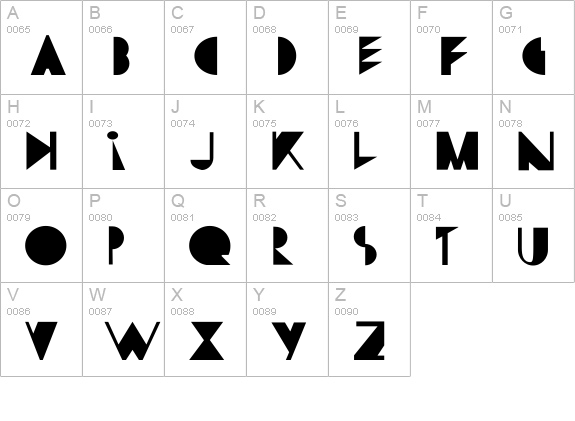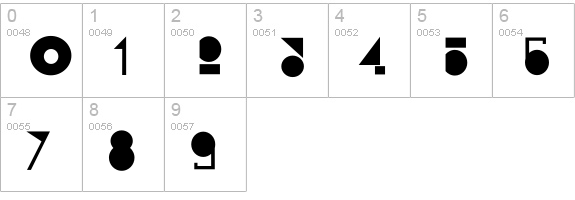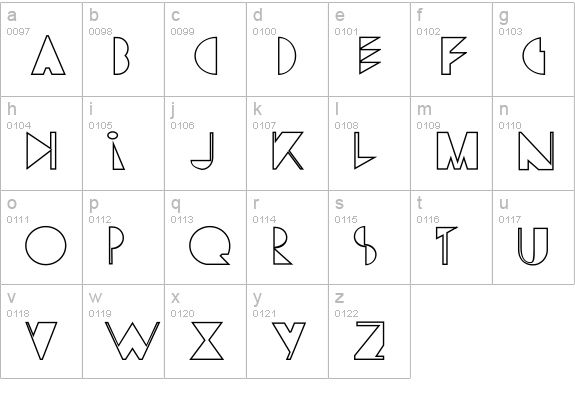
Yes:CityOfAngels Font Details
Yes:CityOfAngels font is a stunning and versatile typeface that captures the essence of urban sophistication and modern design. With its sleek lines and contemporary flair, this font is perfect for a wide range of design projects, from branding to advertising to editorial layouts. The clean and elegant letterforms of Yes:CityOfAngels font exude a sense of style and professionalism, making it a great choice for any designer looking to elevate their work. What's even better is that Yes:CityOfAngels font is available for free download at FontsMarket.com. This means you can easily access this beautiful font and use it in your projects without any cost. Whether you're working on a personal project or a client's design, Yes:CityOfAngels font is a fantastic option that will add a touch of sophistication and modernity to your work. Download it today and start creating stunning designs with this amazing typeface!